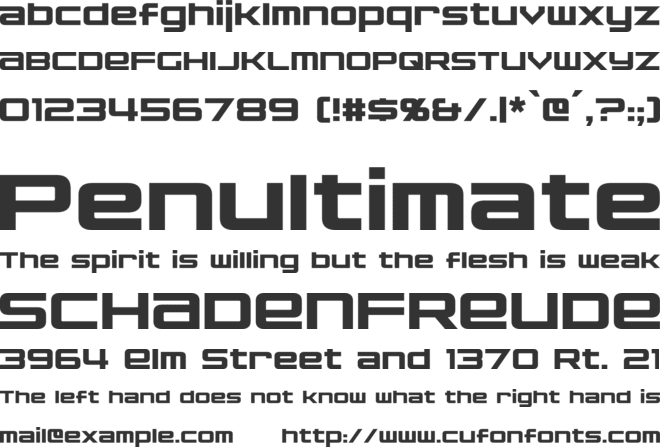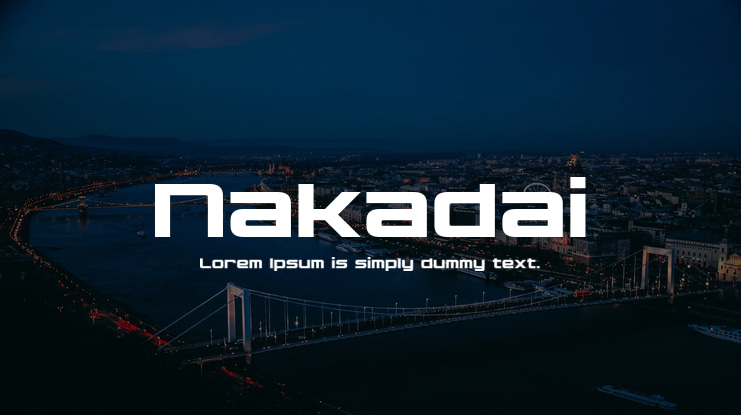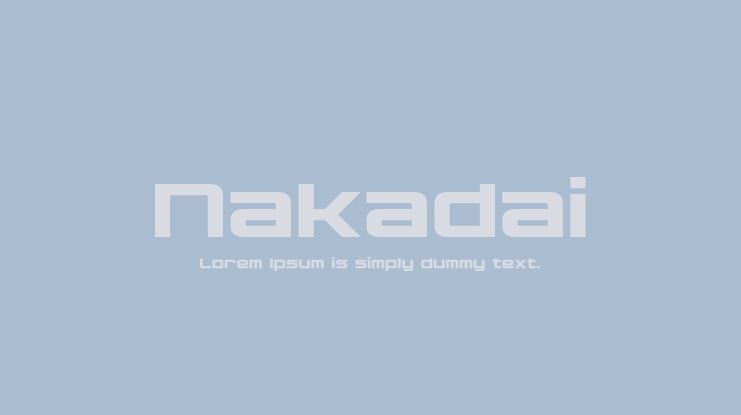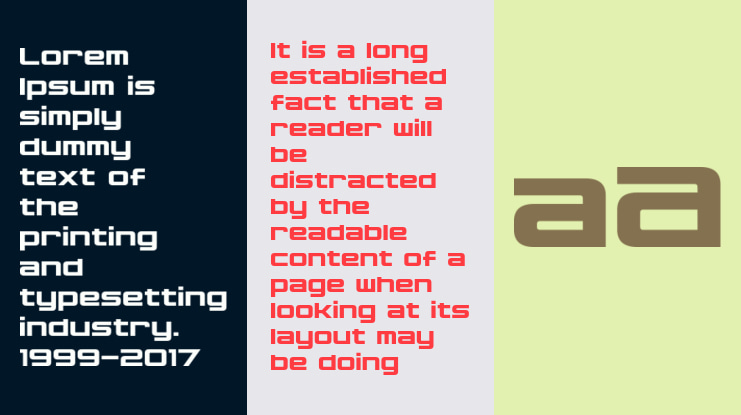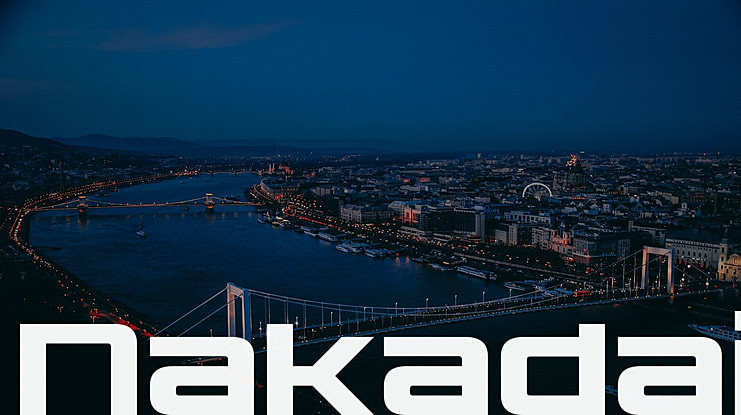
Nakadai Font Family
Neale Davidson
This wide technological font is based on the character lettering for Hasbro's new Transformers: Prime figures. Includes lower case alphabet, accented characters, and Euro. Includes italic version.